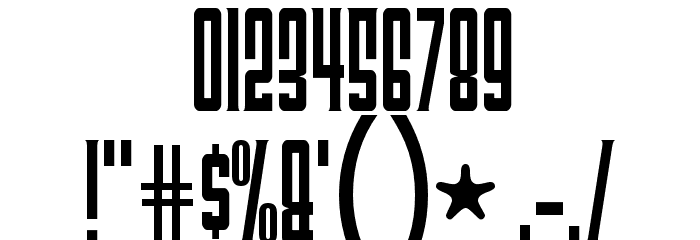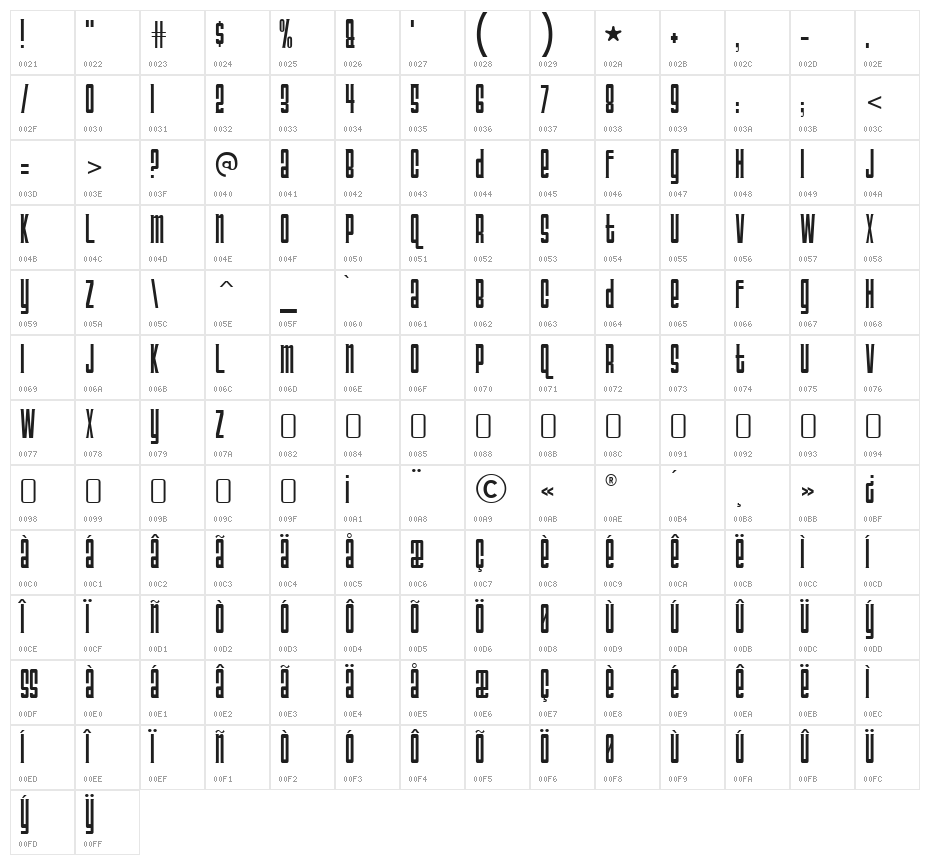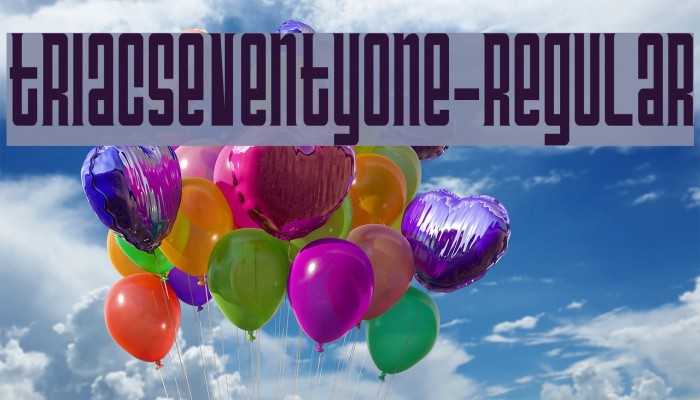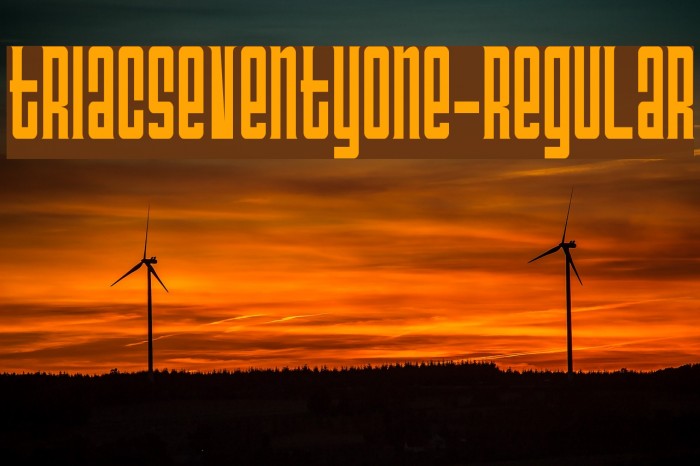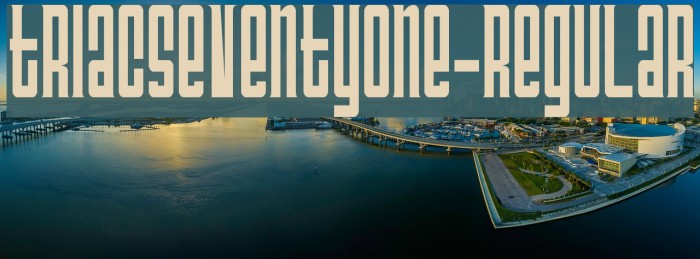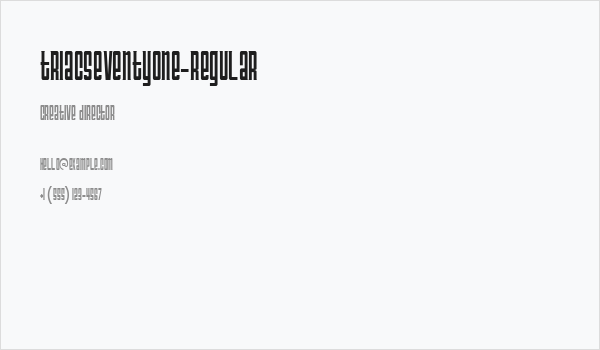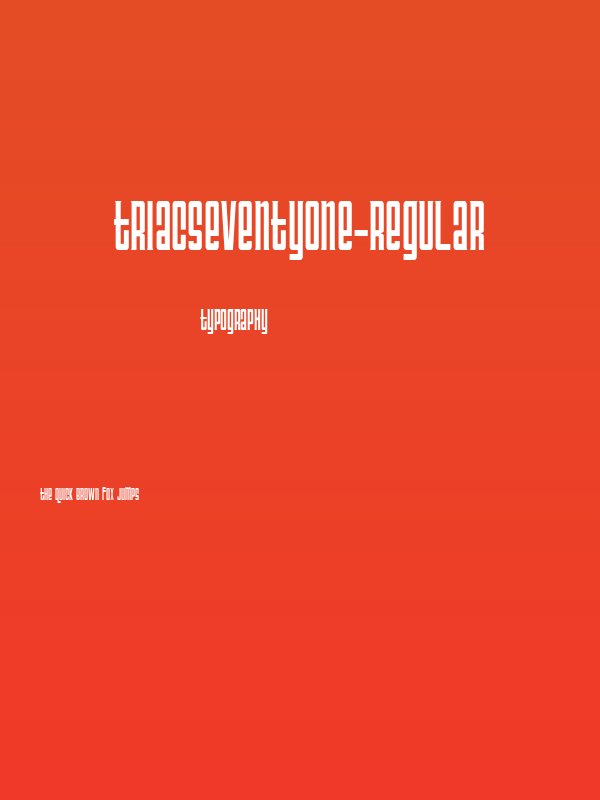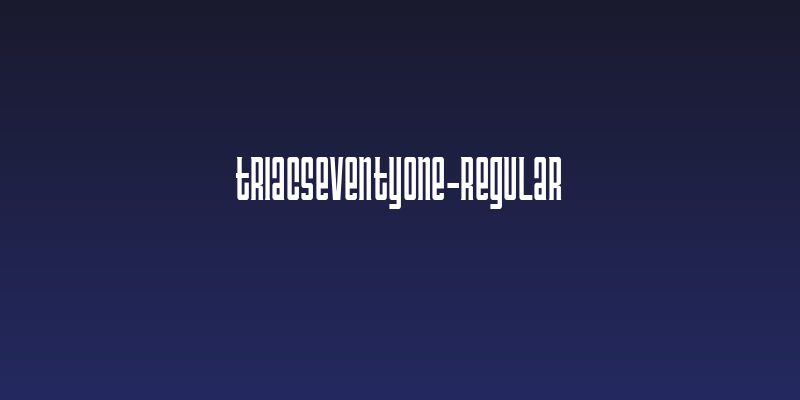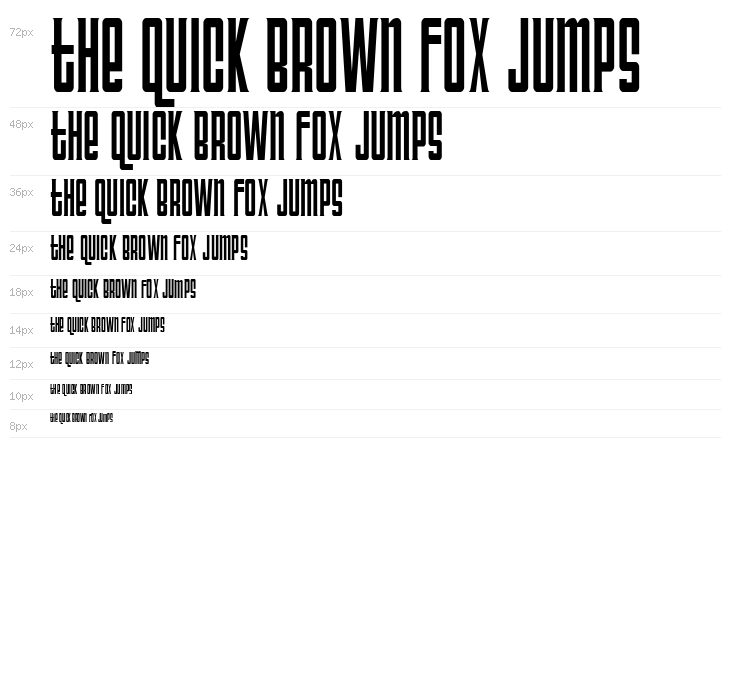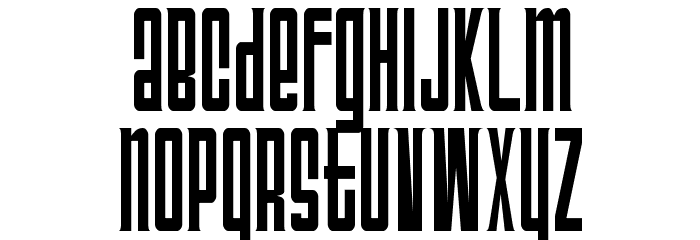
TriacSeventyOne-Regular Font
TriacSeventyOne-Regular Description
This font features a bold and condensed style, characterized by tall, narrow letters with a strong vertical emphasis. The uppercase and lowercase letters share a consistent height, creating a uniform appearance. The design includes sharp angles and clean lines, giving it a modern and assertive look. The numerals are equally bold and maintain the condensed style, ensuring readability. Special characters are designed to match the overall aesthetic, with a focus on maintaining the bold, impactful presence of the font.
| Proposed Projects | Ideal for headlines, posters, and branding projects that require a strong visual impact. |